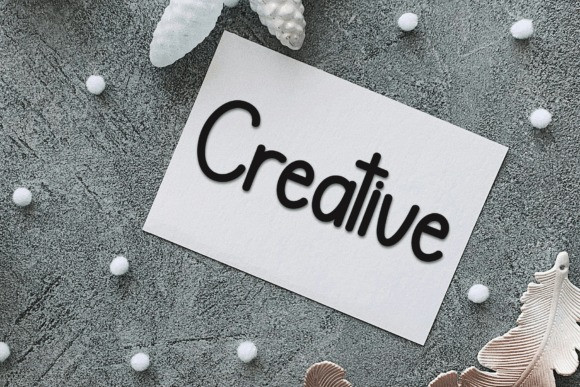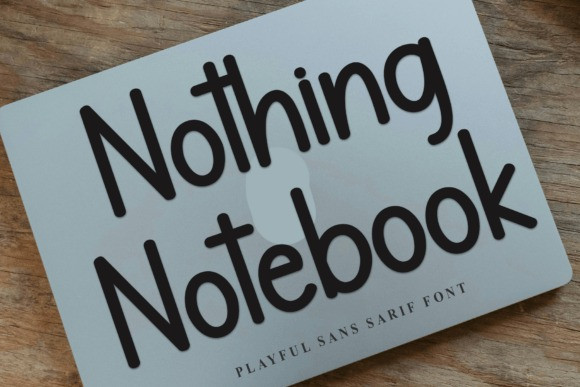
Nothing Notebook Font
Nothing Notebook Font is a fun and playful handwritten sans serif font. Its casual, natural style makes it perfect for creative projects like cards, posters, or anything that needs a personal touch.